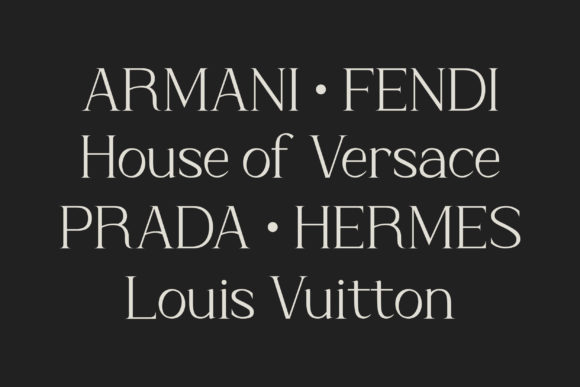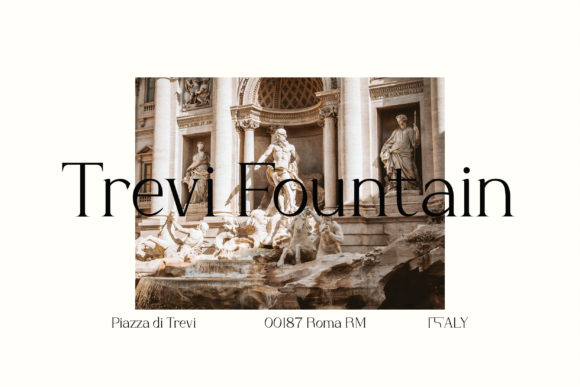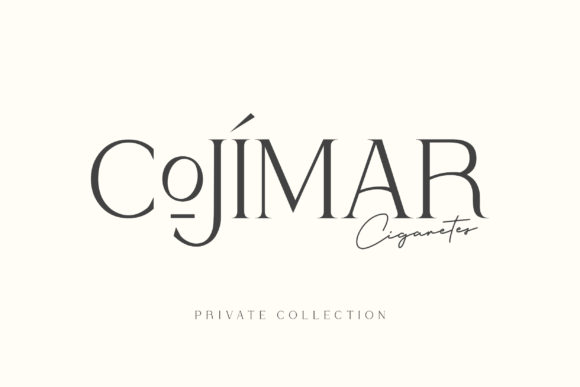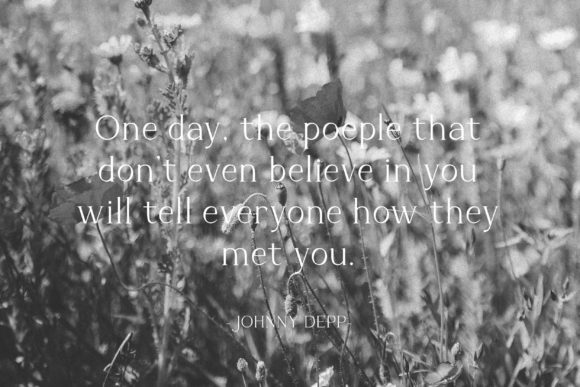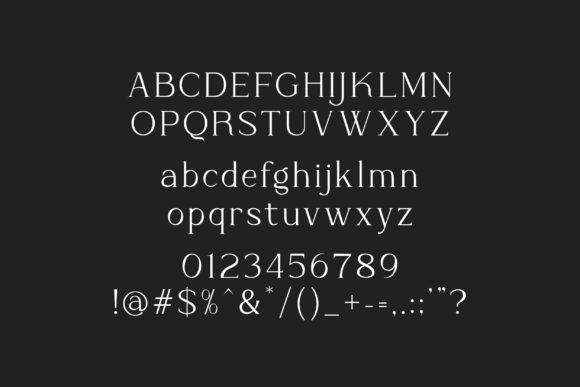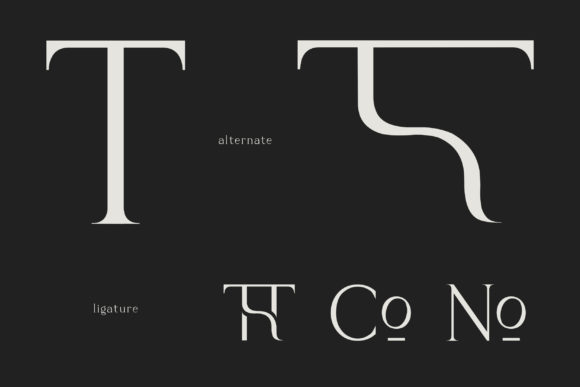
Introduction to Roten Font Font
Fonts play a crucial role in design, and the Roten Font font is a typeface that brings both character and versatility to any project. Whether you’re working on a branding project, a website, or a print design, the Roten Font font offers a unique style that can elevate your work.
Roten is a modern serif font.
It features a sophisticated look and it will look particularly adept when used in logos, branding, packaging design, and much more This masterfully designed typeface is a true must-have.
Key Features of Roten Font Font
Why Choose Roten Font Font?
The Roten Font font is more than just a typeface – it’s a design tool that helps you communicate your message with style and clarity. Its unique character set and versatile design make it suitable for a wide range of applications, from elegant invitations to bold headlines.
With its carefully crafted letterforms and balanced proportions, the Roten Font font ensures readability and visual appeal across all mediums.
What makes Roten Font font special?
The Roten Font font stands out with its unique design, exceptional readability, and versatility across various design applications.